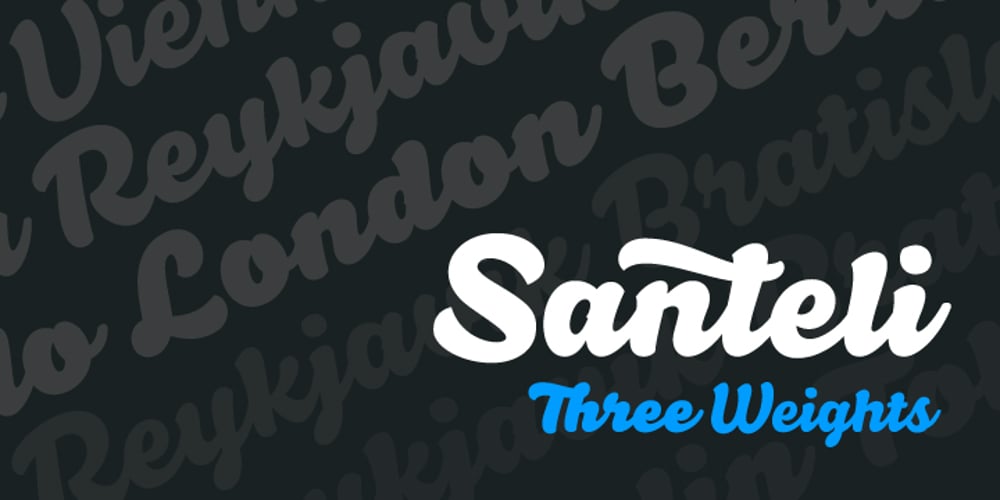
Santeli
Santeli font
Santeli Font Family was designed by published by Melvastype. Santeli contains 3 styles and family package options. Santeli is a big and bold script family containing three weights. It has a smooth feeling spiced with sharp edges.